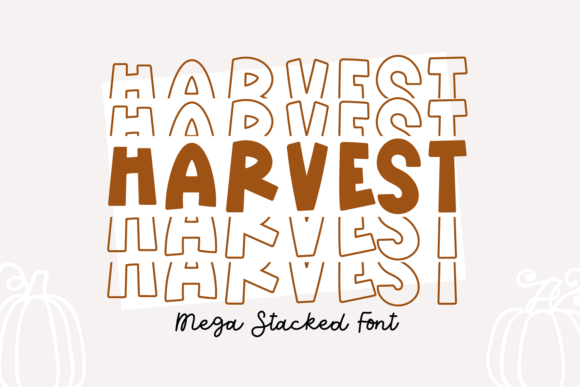
Introducing Harvest Font - the ultimate choice for those seeking the best fonts for bold headings! Created by the talented team at blushfontco, this font family is designed to make a statement with its trendy block display and unique stacked effect.
With Harvest Mega Stacked, your text will become an attention-grabbing masterpiece. Whether you're an e-commerce entrepreneur, a social media enthusiast, or a creative soul, this font is tailored to meet all your needs.
Crafted with precision, Harvest Font is the perfect companion for your branding endeavors. Its bold and captivating style will elevate your business's identity, giving it a powerful and unforgettable presence. From logos to packaging, this font will leave a lasting impression on your target audience.
But Harvest Font doesn't stop there! It's also a fantastic choice for all your crafty projects. Add a touch of personality and charm to your DIY creations, be it home decor, scrapbooking, or personalized gifts. Let your imagination run wild as you make each piece truly unique with this versatile font.
Invitations will never be the same once you unleash the magic of Harvest Font. Transform your event announcements into mesmerizing works of art that captivate your guests from the moment they receive them. Whether it's a wedding, a birthday party, or a corporate event, this font will set the tone and create an unforgettable experience.
Harvest Font comes complete with numbers and a selection of punctuation marks, ensuring that your designs remain consistent and professional. Say goodbye to the hassle of searching for matching characters – this font has you covered.